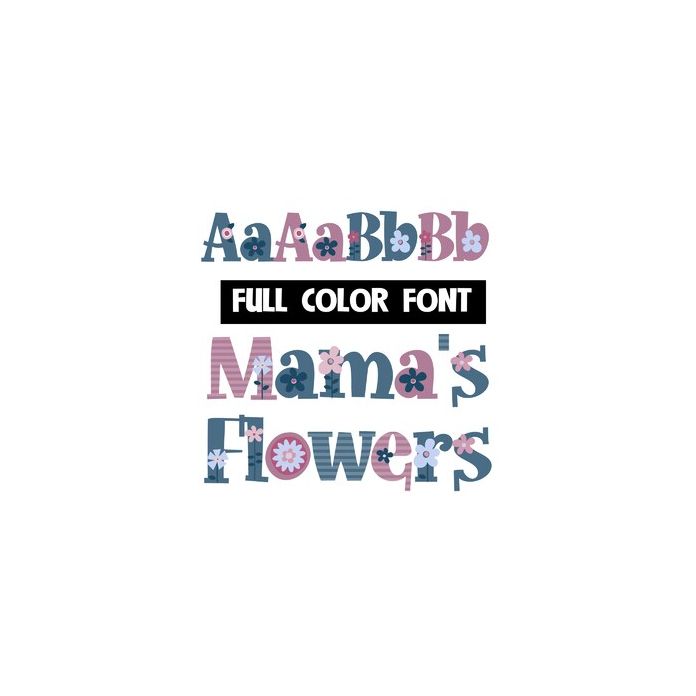
This full-color font features a spring color palette and flowers here and there. There is an alt upper and lowercase with additional colors that you can access through Silhouette's glyph map.